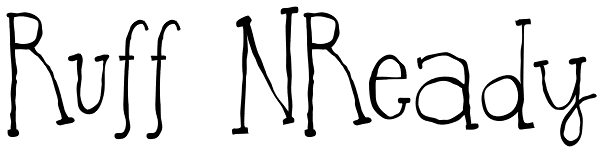
Ruff N Ready
Ruff N Ready is a little bit rough around the edges and is ready for use on any project! This font has an innocent charm about it but is a bit of a non-conformist. Is it a serif font? Sans serif? A script font? It’s all of those and more! It’s...